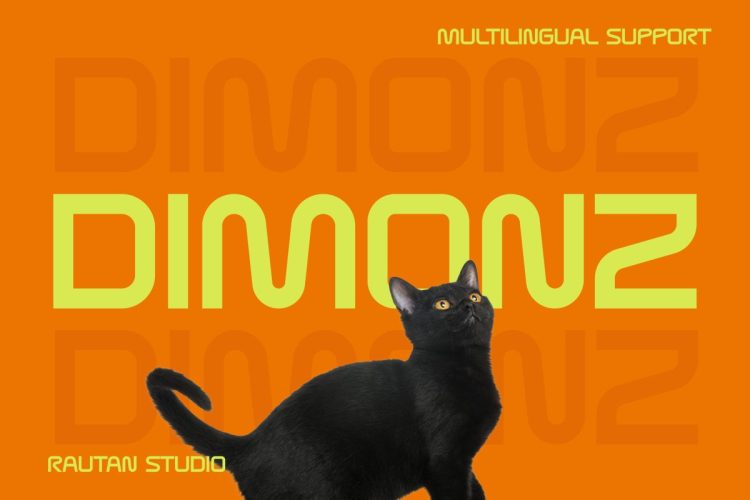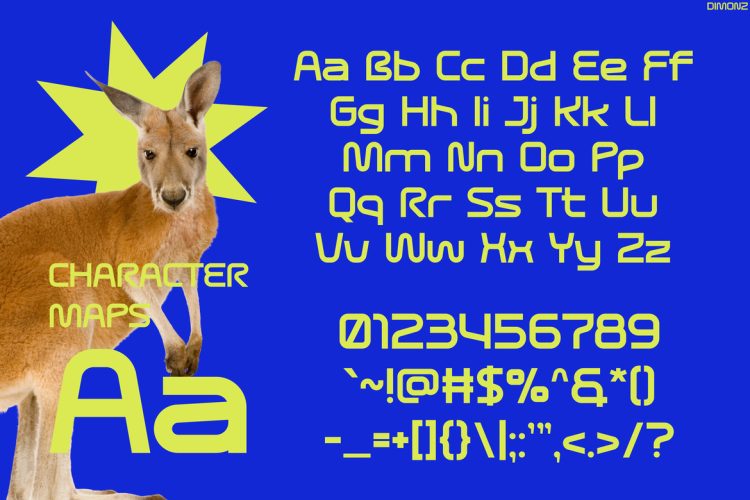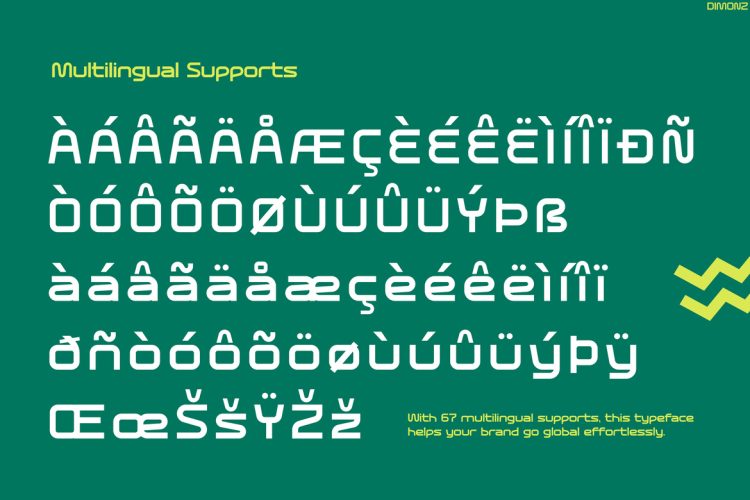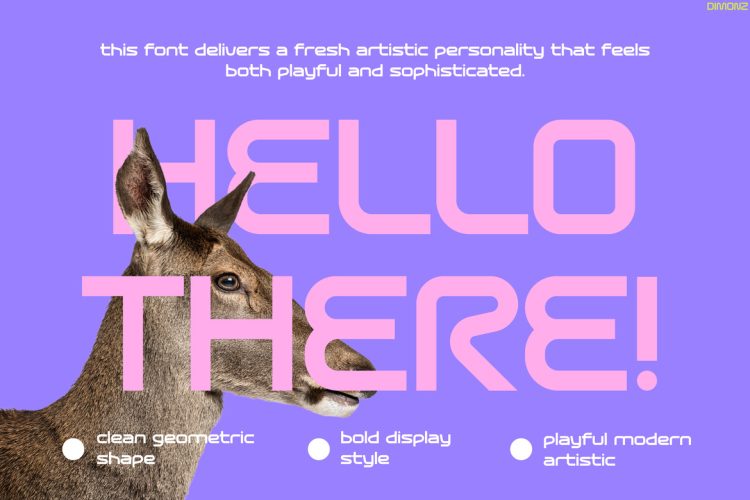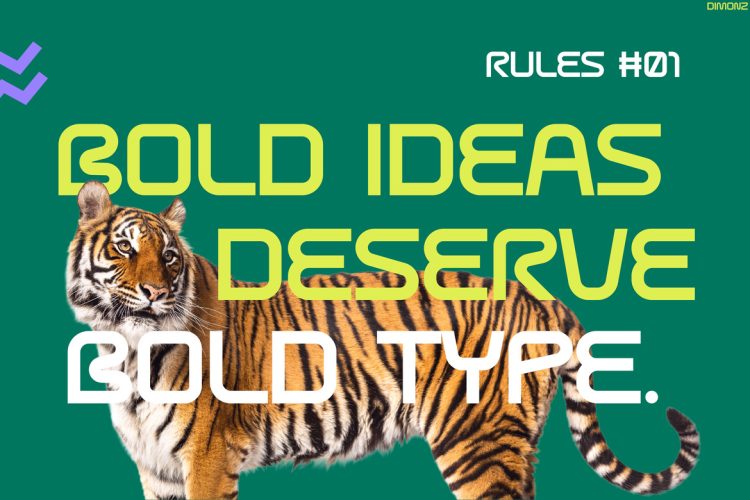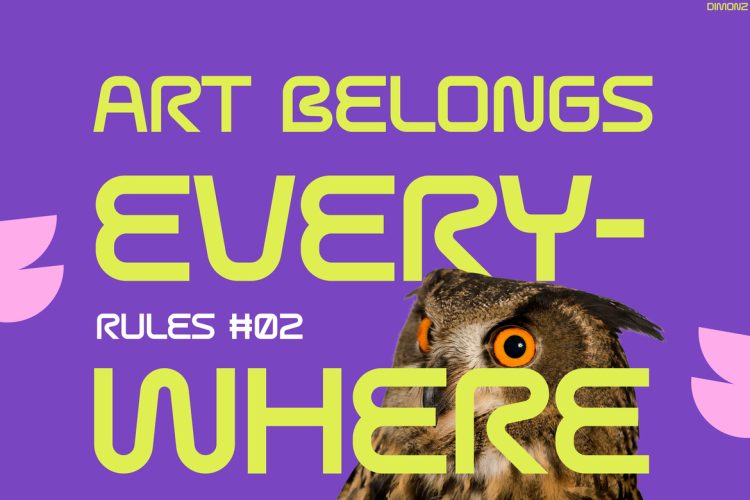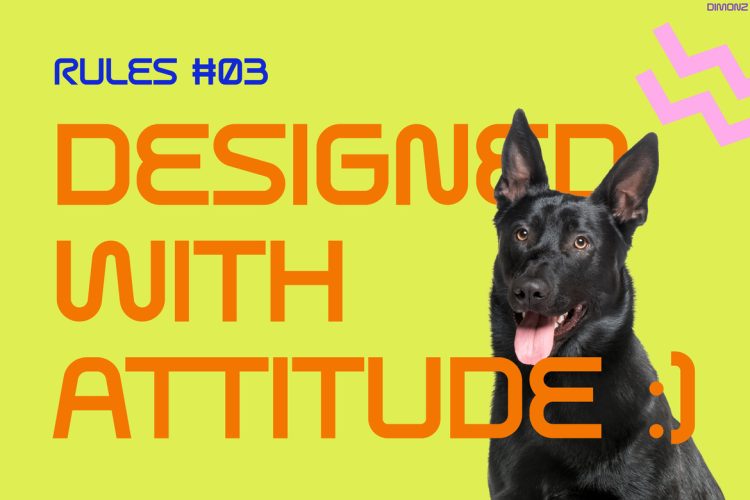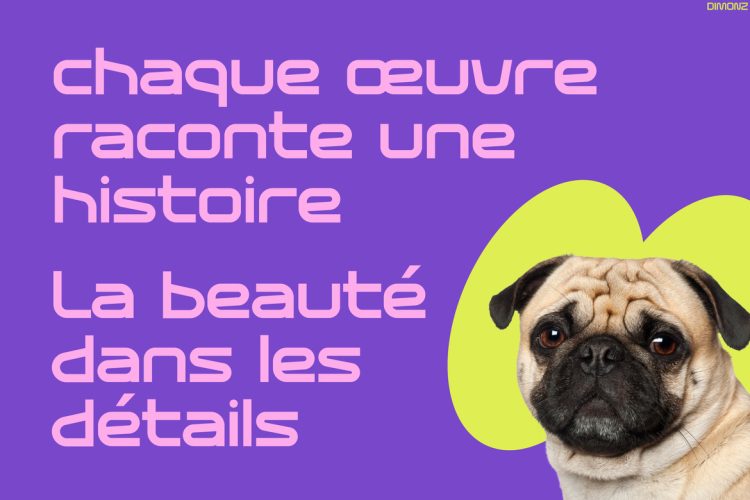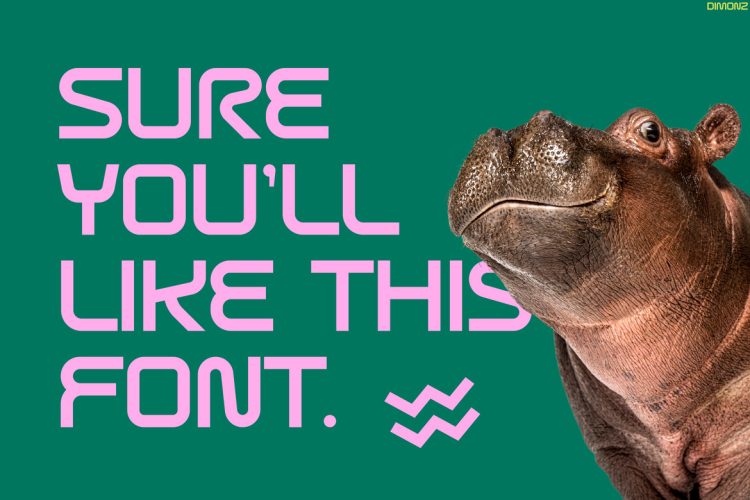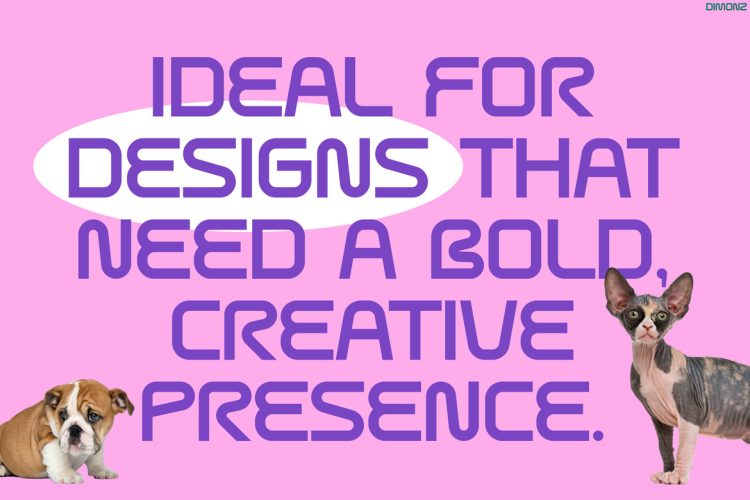
Modern Font Dimonz โ A Bold Typeface That Powers Tomorrow’s Creative Vision
Modern Font Dimonz pushes futuristic typography into a new era with bold geometric shapes and smooth, innovative curves. Instead of following ordinary design trends, Dimonz creates a fresh visual identity that immediately captures attention. Moreover, its unique letterforms bring energy, movement, and personality to every headline. As a result, your designs feel modern, confident, and impossible to ignore. At the same time, the balanced proportions keep every word crisp and easy to read across print and digital media. Furthermore, Multilingual Support for 67 languages lets you connect with audiences around the world while maintaining a consistent brand identity.
Why You’ll Love Modern Font Dimonz
Modern Font Dimonz gives designers the freedom to create bold visuals without sacrificing clarity. Not only will it strengthen your branding, but it will also add a futuristic edge to every project. In addition, the distinctive geometric style fits AI startups, gaming brands, tech companies, mobile apps, esports graphics, YouTube thumbnails, digital campaigns, product packaging, and creative posters. Likewise, the rounded corners soften the futuristic look, while the strong structure keeps every composition clean and professional. Most importantly, Dimonz transforms simple text into bold visual statements that people remember.
- AI and technology brands
- Gaming and esports graphics
- Startup branding
- Mobile apps and UI presentations
- Product packaging
- Posters and advertising
- Social media content
- Modern logos and visual identity
Build the Future Today
Choose Modern Font Dimonz when your brand demands bold ideas and modern style. Furthermore, its futuristic personality instantly strengthens every layout. Consequently, your projects stand out in competitive markets and leave a lasting impression. Finally, add Dimonz to your collection today and turn every headline into a powerful symbol of innovation.